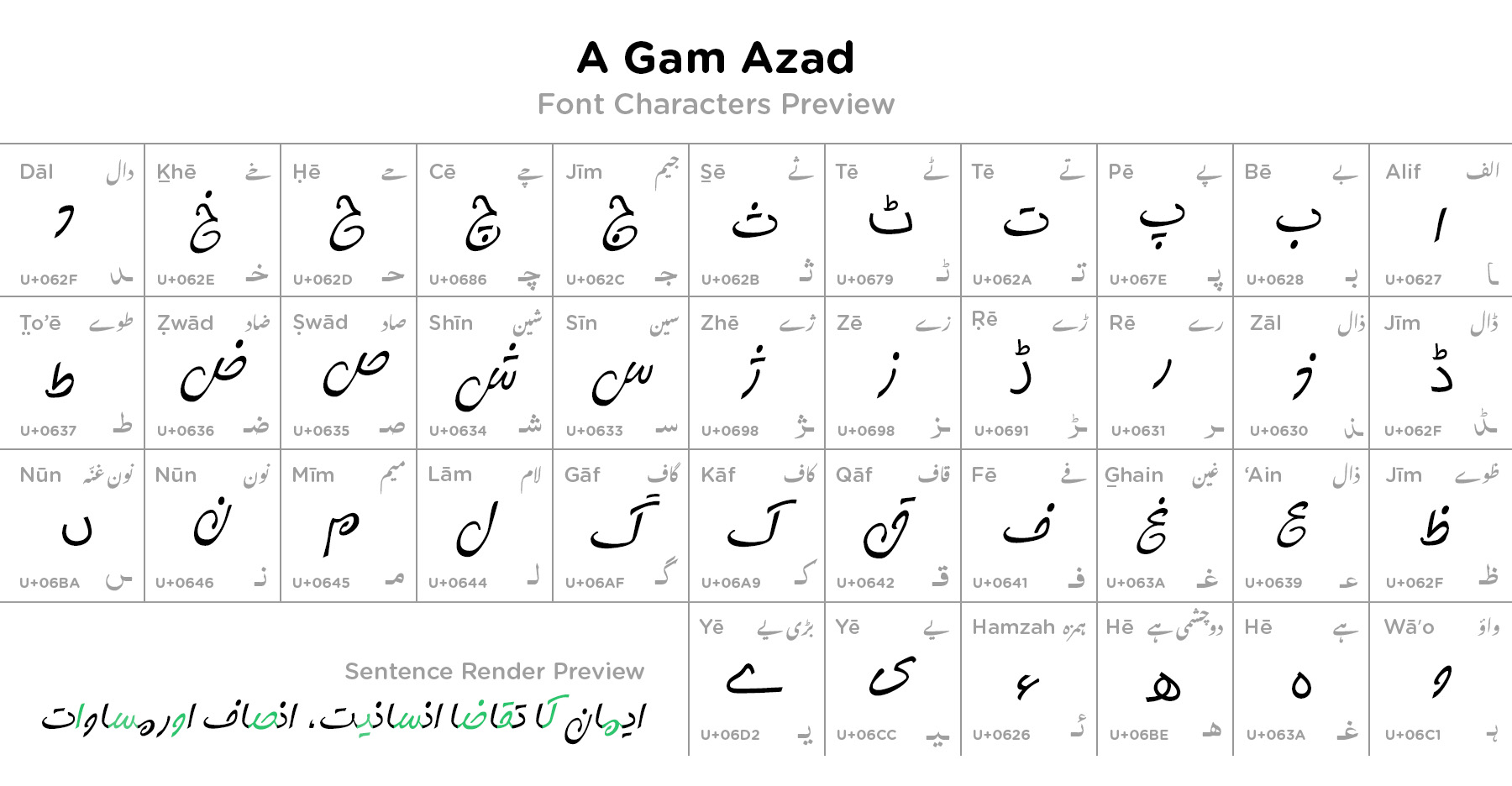
A Gem Azad, crafted by IrFont.ir, is a cursive irregular font boasting a natural feel of handwritten font. Released on March 20, 2021, this font does not belong to any calligraphic scripting category. With 294 characters and 216 glyphs, it seamlessly integrates into several digital design platforms. Moreover, it offers extensive language support for Arabic, Latin, Urdu, and Persian. The spacing between letters is not consistent, resulting in an irregular and untidy format that affects its legibility. The letters have varying thicknesses throughout the letterform with inconsistent strokes. Moreover, if you see carefully, the font may seem a little tilted from right to left.
Considering its untidy appearance, A Gem Azad is more of a creative font than a formal one with quite a little practicality. This font type embraces its cursive irregularity, giving designs an organic and authentic touch. It’s medium width and normal font-weight however, ensures adaptability across various design contexts. Additionally, its Unicode blocks encompass Basic Latin, Latin-1 Supplement, Arabic, General Punctuation, Private Use Area, Arabic Presentation Forms-A, and Arabic Presentation Forms-B, ensuring compatibility with diverse text encoding standards.